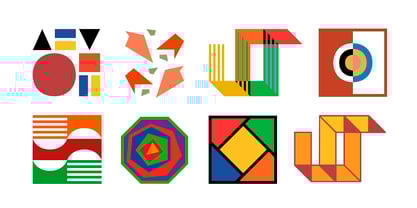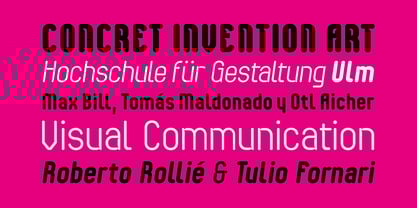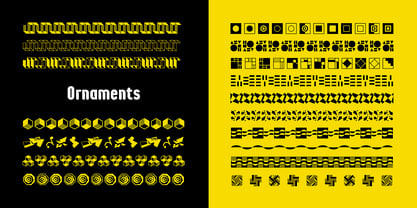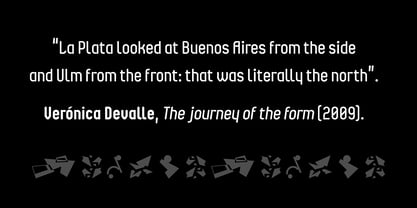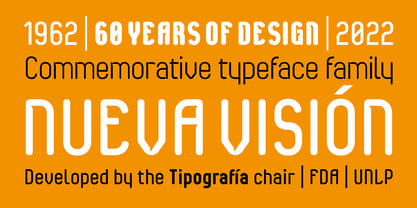
Ascetica Rounded
by Fabio Ares
The Ascetica Rounded Font Family was designed by Fabio Ares and published by Fabio Ares. Ascetica Rounded contains 9 styles and family package options. More about this family
Ascética Rounded is a font family with a geometric sans serif style, developed by professor Fabio Ares and the Typography Chair of National University of La Plata, Argentina, especially in commemoration of 60 years of design careers at the Faculty of Arts. Ornaments: Octavio Osores, Gastón Lugano, Walter Chaves & María Laura Motta.
Its morphology is based on the formal proposals of Concrete Invention Art and the Ulm School, closely linked to the ideas that led to the creation and evolution of these careers.
The incorporation of ink traps suggests the idea of three-dimensionality and suggestively recall the impossible figures of Maurits Escher.
It currently has 8 variables, four of tone and four of inclination. It is also accompanied by a set of ornaments with a concrete air that can be used as an icon or grouped to compose borders and/or boxes. Among its forms you can find works by Max Bill and Tomás Maldonado, and other artists.